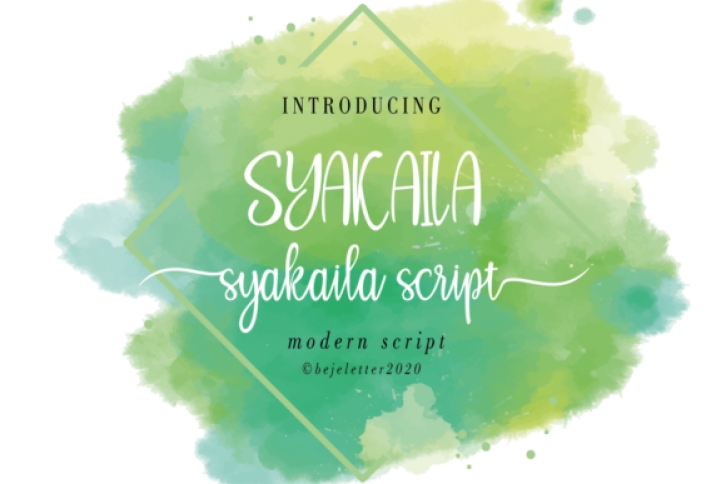
Syakaila is a modern and flowing handwritten font. Fall in love with its completely different and timeless style and use it to create spectacular designs!